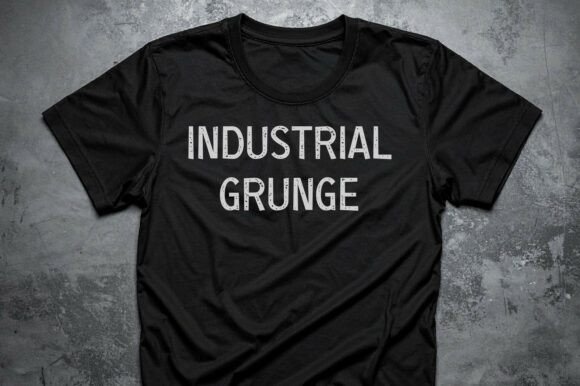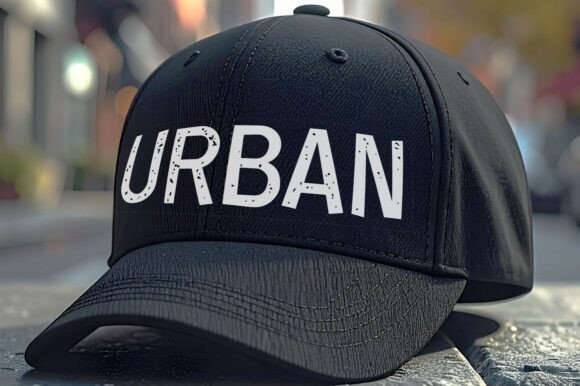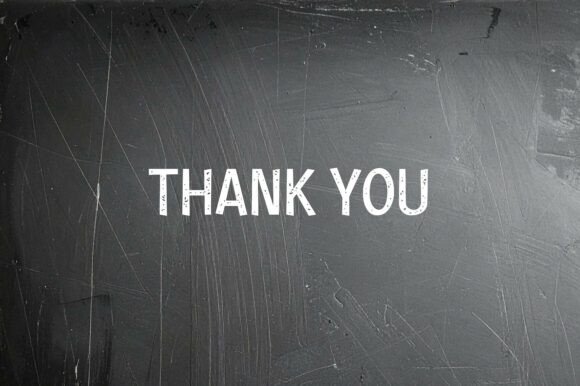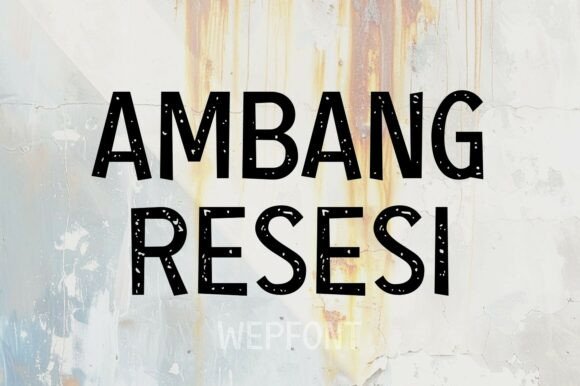
Unleashing the Power of Ambang Resesi Font: A Bold and Impactful Typeface for Modern Designs
In the world of typography, fonts play a crucial role in conveying the tone and aesthetic of a design. Among the numerous typefaces available, the “Ambang Resesi” font stands out for its bold, industrial, and impactful sans-serif style. Designed to convey strength, seriousness, and a modern, often edgy, aesthetic, this font is perfect for designers and crafters looking to make a statement.
Characteristics of Ambang Resesi Font
The Ambang Resesi font boasts strong, uniform strokes and condensed or semi-condensed proportions, giving it a sense of urgency and directness. Its heavy weight and clear lines evoke an undeniable sense of authority and importance, making any message stand out. The rigid structure and blocky feel of this font align perfectly with industrial, architectural, or urban themes, making it an ideal choice for designs that require a modern and edgy look.
Intended Use and Examples
The Ambang Resesi font is intended for use in gritty, contemporary, or even dystopian-themed designs. Examples such as “Industrial Grunge” and “Urban” showcase its potential in creating visually striking and thought-provoking designs. This font is perfect for designers who want to create a sense of tension or urgency in their work.
What Makes Ambang Resesi Font Good or Different?
So, what sets the Ambang Resesi font apart from other typefaces? Here are a few key features that make it an excellent choice for designers and crafters:
- Strong & Authoritative: Its heavy weight and clear lines give it an undeniable sense of authority and importance, making any message stand out.
- Industrial/Urban Aesthetic: The rigid structure and blocky feel align perfectly with industrial, architectural, or urban themes.
- High Impact & Visibility: Designed for headlines and short, powerful statements, it demands attention and is highly legible even from a distance or in busy contexts.
- Versatile in Context: The Ambang Resesi font can be used in a variety of design contexts, from posters and flyers to digital screens and billboards.
Tips for Using Ambang Resesi Font Effectively
To get the most out of the Ambang Resesi font, here are some tips for using it effectively:
- Use it sparingly: Due to its bold and impactful nature, it’s best to use the Ambang Resesi font sparingly to avoid overwhelming the viewer.
- Pair it with contrasting fonts: Pairing the Ambang Resesi font with contrasting fonts can create visual interest and add depth to your design.
- Experiment with different colors: The Ambang Resesi font looks great in a variety of colors, so don’t be afraid to experiment and find the perfect hue for your design.
In conclusion, the Ambang Resesi font is a powerful and versatile typeface that can add a touch of modernity and edginess to any design. Its strong, industrial aesthetic and high impact visibility make it perfect for designers and crafters looking to create visually striking and thought-provoking designs. By understanding its characteristics, intended use, and tips for effective use, designers can unlock the full potential of the Ambang Resesi font and take their designs to the next level.